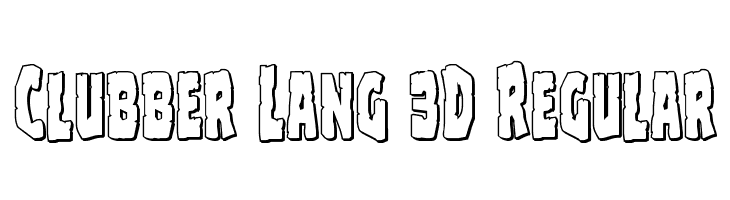
A bold, playful font with chunky, irregular letterforms and a hand-drawn feel.
A bold, condensed font with modern, sleek lines and high legibility.
A playful, rounded handwritten font with a friendly and whimsical style.
A bold, 3D italic font with a textured, industrial look.
A bold, decorative font with a layered outline effect, perfect for creative projects.
A bold, italic font with sharp angles and high contrast, perfect for dynamic designs.
Bold, playful emoticon and symbol icons with thick lines and high contrast.
A bold, pixelated font with a retro digital aesthetic.
设计师偏爱 SCHOOL DAYS PERSONAL USE Regular, Laser Rod Normal, Friedrich Condensed, My School Font PG and Colossus 3D Italic,因为其造型干净、适用范围广—— 从品牌识别到落地页、海报都能胜任。